I often tell people that that drawing skills are essential. When I start a project I do a lot of preliminary studies to learn the letterforms. I am not creating detailed drawings as all the precise draftsmanship happens while drawing in Adobe illustrator. I rarely spend more than a couple minutes per sketch. Basically a lot of quick investigation of what may work for readability.
This series of sketches was done with a PITT marker on sheets of 9" X 12" layout paper. I drew these studies while sitting at the kitchen table eating lunch. Only had a couple hours get some ideas together on paper for a quick presentation with the art director. After all the trial and error studies I picked versions which had some potential for further development, traced them while adding notes for the AD to read. After sacnning the layouts I e-mailed the files for presentation.
These are the images sent to the AD. After he reviewed everything we discussed which versions to develop in Illustrator.
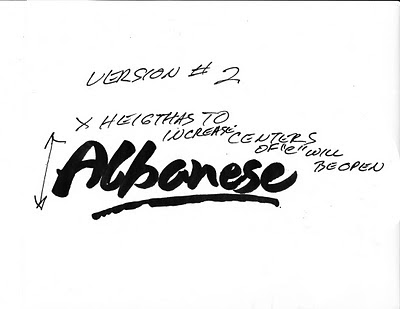
This image shows the vector versions created from the sketches.
After sending the vector art files to the AD I created one more version that had nice flow and contrast. Something extra as another option for the AD.
Overall, this was a very successful project. The images show that drawing is an important part of the lettering process. Sketching is the way to find out in a very quick time frame what will and will not work. Concept sketching also allows the opportunity to show a client what is possible instead of guessing what finished art might be.